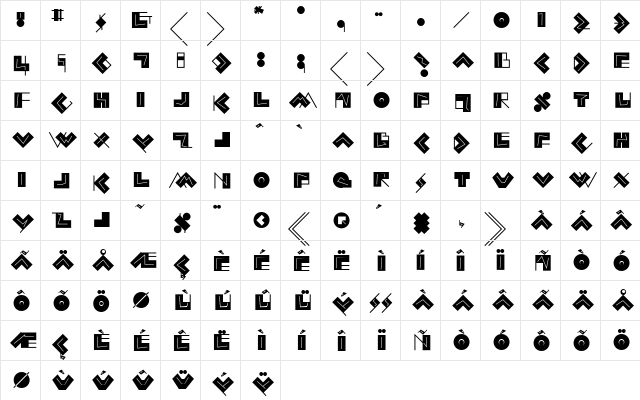
AIIdeographInline Regular
Design Context for AIIdeographInline Typeface
AIIdeographInline brings ornamental detail and strong personality to headlines and identities, where visual impact matters more than quiet functionality.
Font Pairing: Pair with a clean neutral sans-serif for body copy to let AIIdeographInline's character lead without overwhelming the composition.
Pro Tip: Treat AIIdeographInline as the centrepiece of your typographic hierarchy. One strong heading set in a decorative face can carry an entire layout.